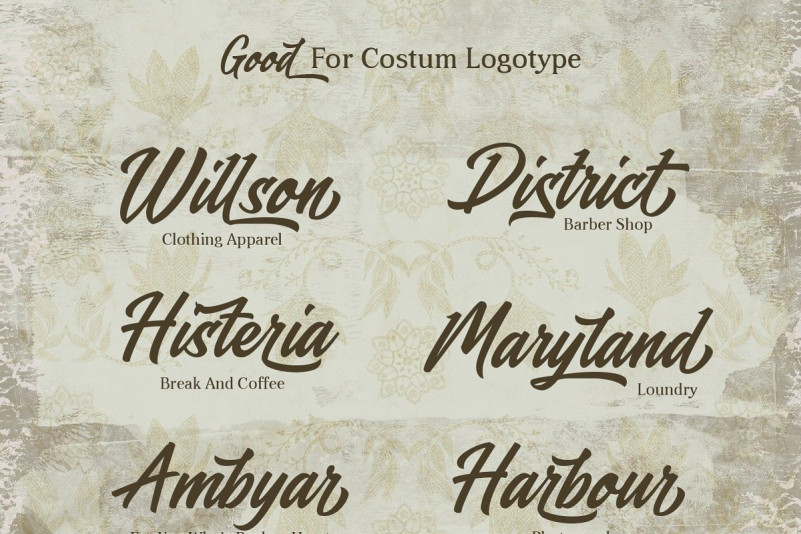
Blasteran Script Font
Hello friend. This is a bold script font. Inspired by Retro style and combination with calligraphy style. It’s a classic bold script font that has a strong and clean character so that it will give a clean and manly impression. Hope this can make inspire you from your work
! Introducing Blasteran Script Font. This font can be used in various needs such as logos, posters, business cards, menu designs, quotes, advertisements, packaging, branding, t-shirt designs and others.